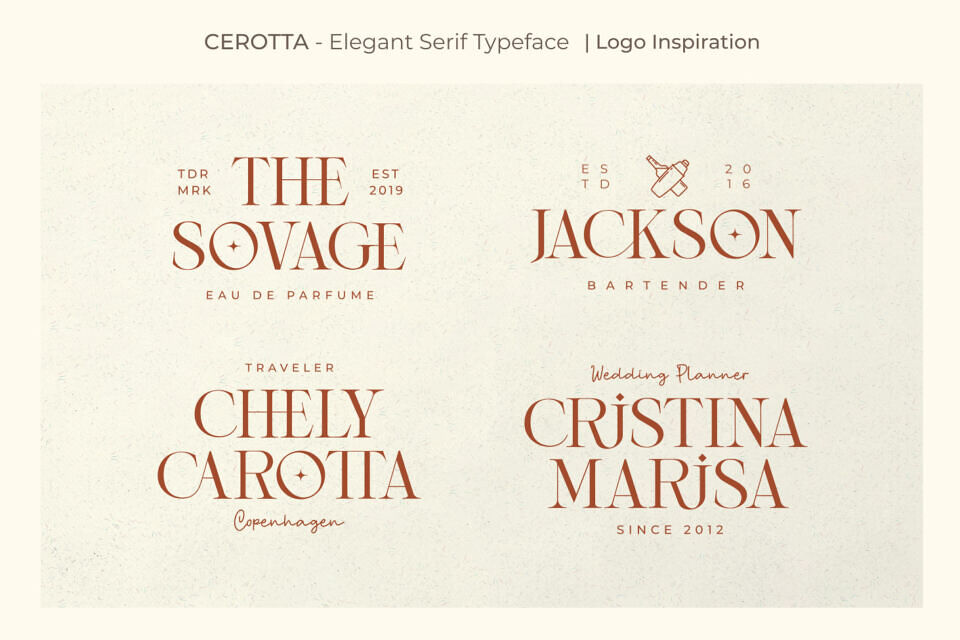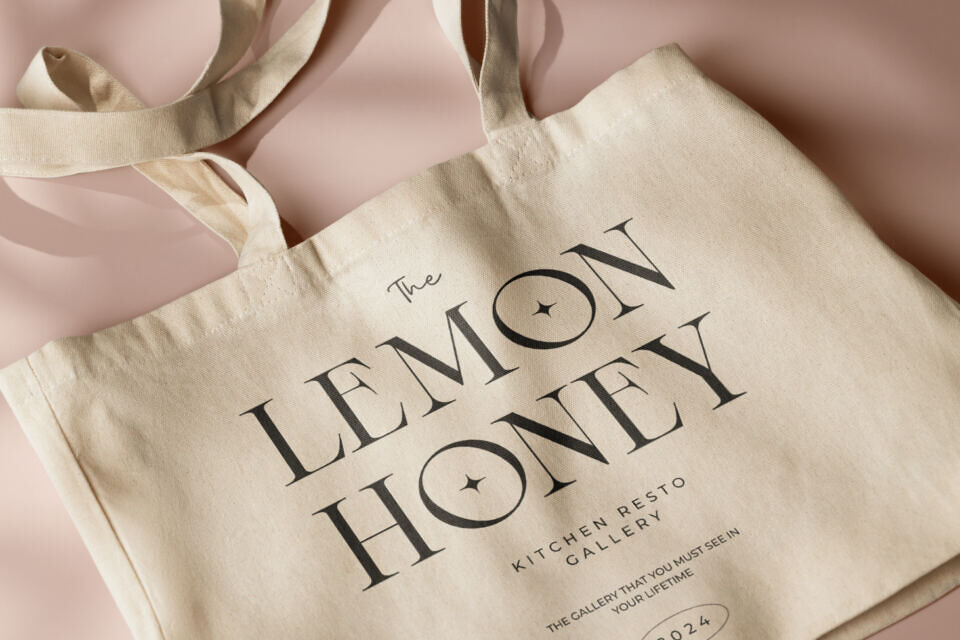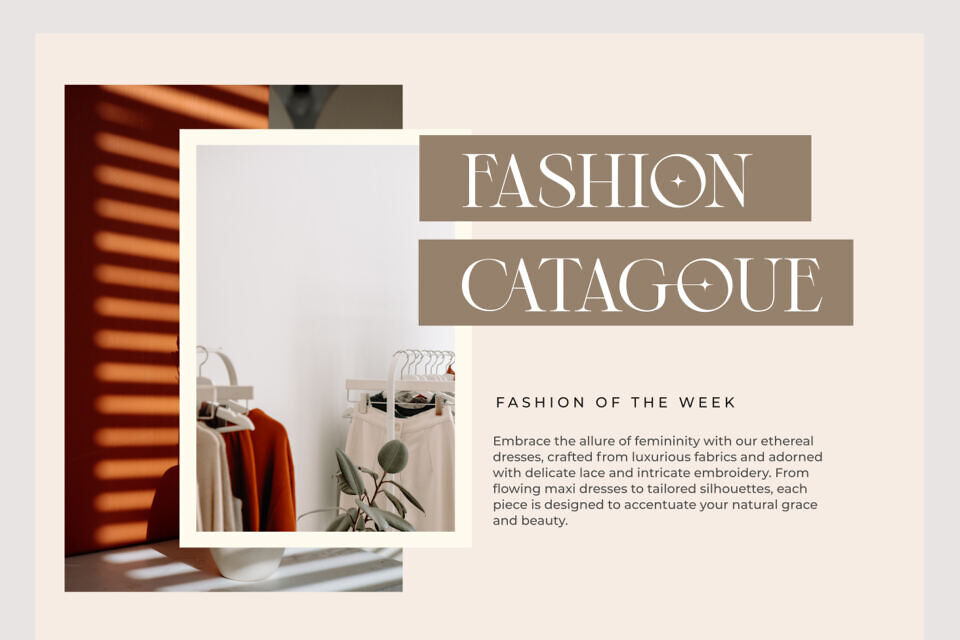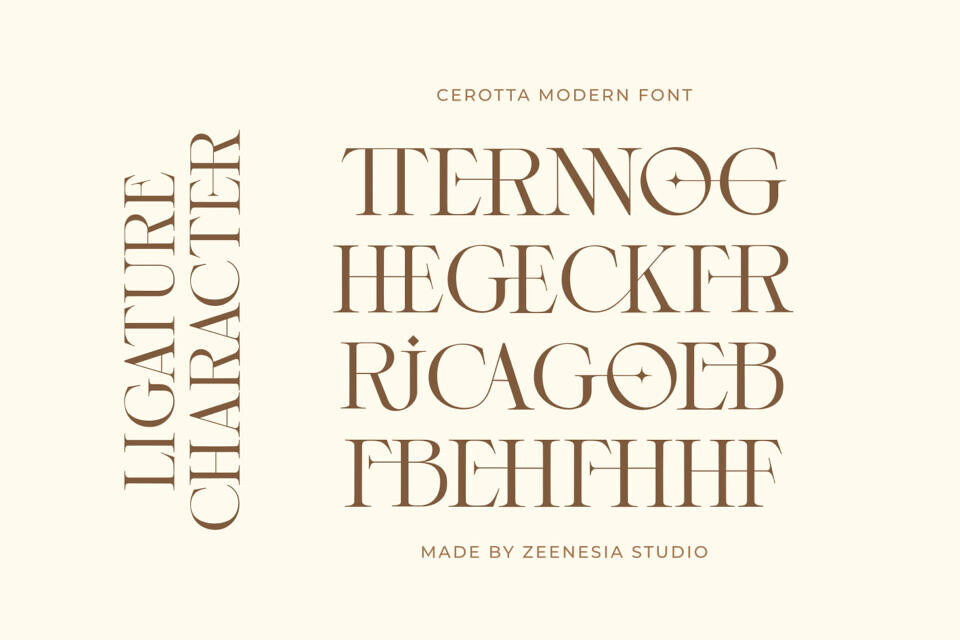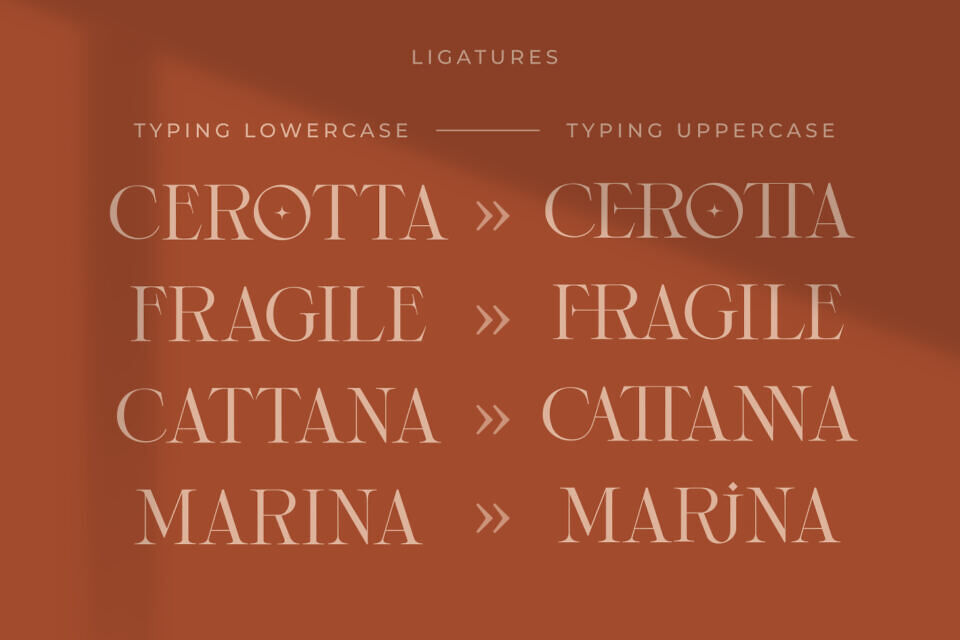
Cerotta Font
Cerotta is a luxurious serif font that epitomizes sophistication and opulence. Its regal serifs and graceful curves exude timeless elegance, making it perfect for high-end branding and editorial projects. Elevate your designs with the distinguished charm of Cerotta, a font that radiates refined luxury.